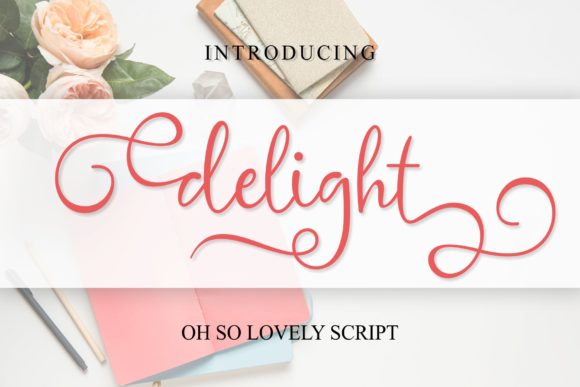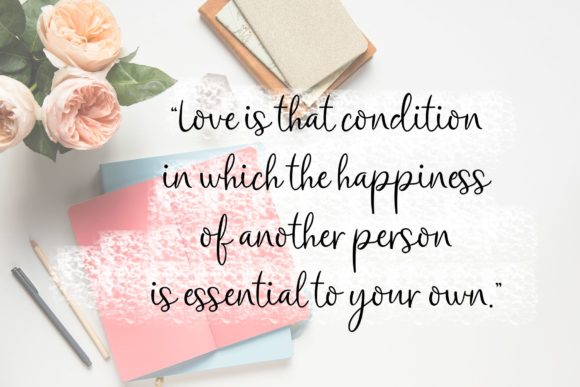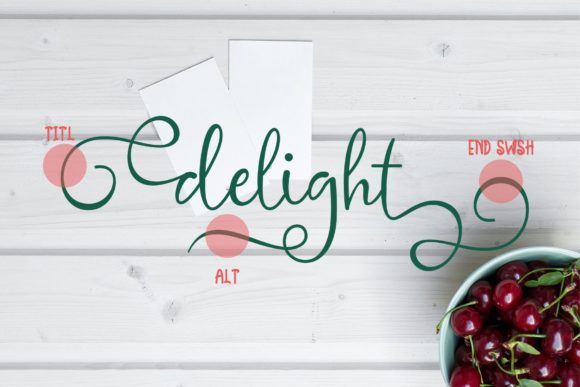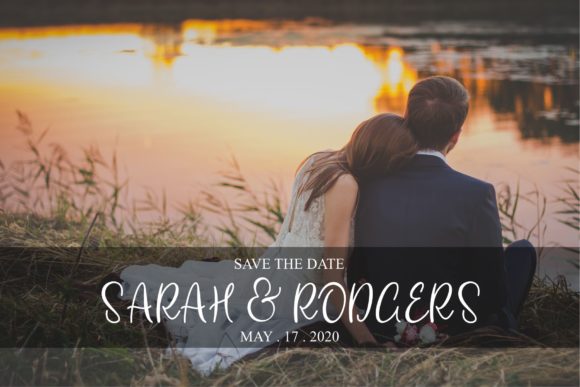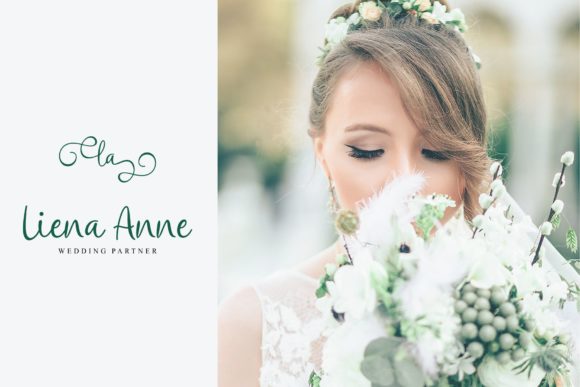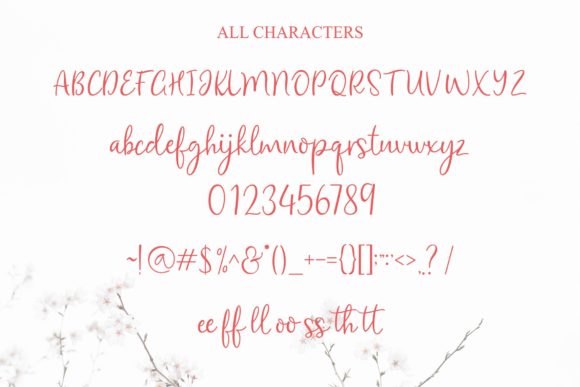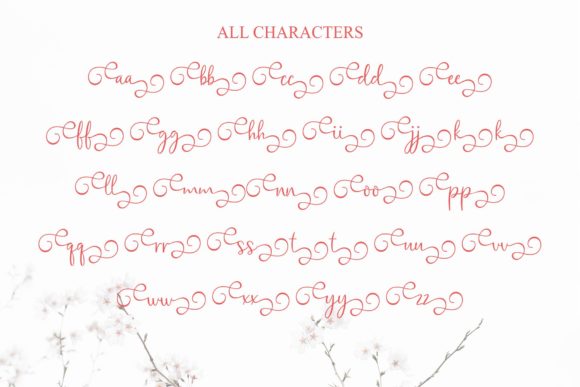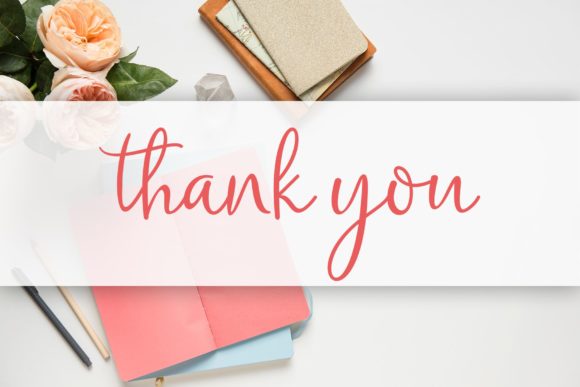
Delight Font
About Delight Font
As its name suggests, Delight is an absolutely delightful and stunning script with beautiful swashes. Get inspired by its unique charm!